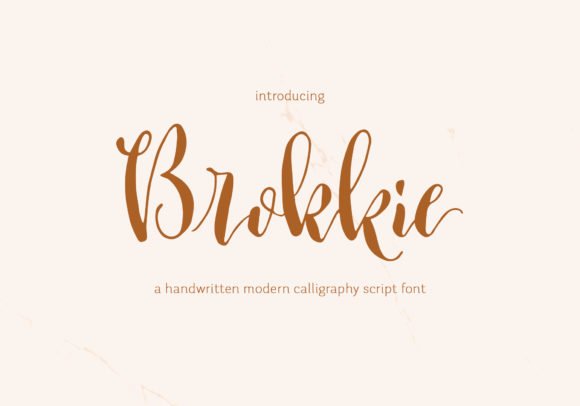
Have you ever been browsing through a design inspiration board, and you come across a beautiful quote or logo that just makes you feel something? That’s what happens when you get it right with typography. For designers, finding the perfect font can be the difference between a design that’s just okay, and one that truly stands out.
Enter the Brokkie Font, a lovely script font that adds a modern twist to any design. Its relatable and down-to-earth element makes it perfect for creating eye-catching logos, branding, and quotes. Whether you’re a seasoned designer or just starting out, the Brokkie Font is a valuable addition to your toolkit. With its versatility and charm, it’s no wonder why designers are falling in love with this font.
Key Features of Brokkie Font
- Unique Characteristics: Brokkie Font features a unique blend of modern and vintage elements, with intricate details and ornate flourishes that add a touch of elegance and sophistication to any design.
- Font Style: The font is available in a single style, but with a range of weights, from light to bold, allowing designers to achieve a range of visual effects and moods.
Brokkie Font Review
First of all, let me say that I’m impressed by the unique design of the Brokkie Font. It’s ✨ quirky, playful, and perfect for projects that need a bit of personality. The font’s irregularities give it a hand-drawn feel that’s both charming and effective.
One of the things I love about Brokkie is its versatility. It works well for ✨ headings, titles, and even body text, making it a great option for a wide range of projects. The font’s bold and italic variations are also well-executed, adding an extra layer of expressiveness to the design.
However, there are a few limitations to consider. The font’s irregularities can sometimes make it difficult to read, especially in smaller sizes or when used extensively. Additionally, the font’s style may not be to everyone’s taste, and some users may find it too playful or distracting.
Here are some specific things to keep in mind:
- Font size: Use larger font sizes to ensure readability.
- Color scheme: Pair the font with a simple, contrasting color scheme to avoid visual overload.
- Context: Consider the tone and style of your project before using Brokkie.
Overall, I think Brokkie is a great addition to any designer’s toolkit. While it may not be suitable for every project, its unique charm and versatility make it a valuable resource for those looking to add some personality to their designs.
Getting the Most Out of Brokkie Font
For best results, use Brokkie Font in conjunction with bold or italic styles to add emphasis to your text. You can also experiment with different font sizes and colors to create visual interest.
Brokkie Font is suitable for a variety of applications, including:
– Headlines and titles
– Menu items and navigation
– Infographics and presentations